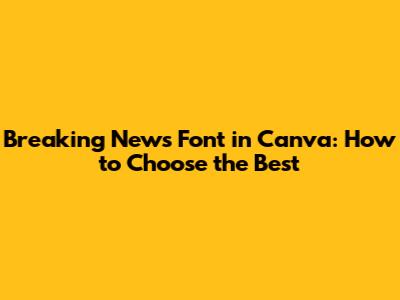
- Bebas Neue: This one's a classic. It's tall, bold, and screams 'Important!' Perfect for headlines that need to grab attention. It is a very solid choice for your breaking news headlines.
- Impact: True to its name, Impact is another solid choice. It’s big, blocky, and impossible to ignore. Use it when you need to make a serious statement.
- Arial Black: You can’t go wrong with Arial Black. It's clean, simple, and super readable. It works well in pretty much any context, especially when you need something reliable.
- Montserrat: If you're after something modern and clean, Montserrat is your go-to. It’s easy on the eyes and works great for both headlines and body text. It provides a more contemporary feel while still maintaining readability.
- Oswald: Another great sans-serif option, Oswald is slightly condensed, giving it a unique look while still being highly readable. It’s versatile and works well in a variety of news contexts.
- Size Matters: Make sure your font is large enough to be seen from a distance. On social media, people are often scrolling quickly, so you need to catch their eye instantly.
- Color Contrast: Use colors that pop against your background. Think bright text on a dark background or vice versa. Just make sure it’s easy to read!
- Keep it Short and Sweet: Breaking news headlines should be concise. Get straight to the point and avoid long, complicated sentences. Less is often more.
- Hierarchy is Key: Use different font sizes and weights to create a visual hierarchy. The most important information should be the largest and boldest.
- Consistency is King: Stick to a consistent font scheme across all your breaking news graphics. This helps build brand recognition and makes your content look professional.
- White Space is Your Friend: Don't cram too much text into your design. Give your words room to breathe by using plenty of white space. This makes the text easier to read and less overwhelming.
- Consider Mobile Viewing: A huge number of people will be seeing your breaking news on their phones. Make sure your font is readable on smaller screens. Test it out on your own device to see how it looks.
- Add Visual Elements: Combine your text with eye-catching images or graphics. A compelling visual can help draw attention to your breaking news and make it more shareable.
- Create a Brand Kit: Canva lets you create a brand kit with your go-to fonts, colors, and logos. This makes it easy to stay consistent across all your designs.
- Use Templates: Start with a template that already uses your preferred fonts. This saves you time and ensures consistency.
- Document Your Choices: Keep a record of the fonts you use for different types of breaking news. This will help you stay on track and avoid confusion.
- Get Feedback: Ask for feedback from others on your font choices. A fresh pair of eyes can help you spot inconsistencies and make improvements.
Choosing the right breaking news font in Canva is super important to grab attention and get your message across effectively. Think about it – the font is the first thing people see, and it sets the whole vibe. You want something that screams 'Read me now!' but also keeps things clear and professional. Let's dive into how to pick fonts that make your news pop!
Why Font Choice Matters for Breaking News
Guys, have you ever thought about why some news headlines just jump out at you while others fade into the background? A big part of it is the font. The right font does more than just display words; it communicates urgency, importance, and credibility. In the fast-paced world of news, you have seconds to capture someone's attention, and your font is your first impression.
Consider this: A bold, attention-grabbing font can convey the severity of the news, making people stop and take notice. A clear, easy-to-read font ensures that the message is understood quickly and without confusion. But use a font that's too fancy or difficult to read, and you risk losing your audience before they even get to the meat of the story. That's why understanding the impact of font choice is crucial.
When selecting a font, think about the emotional response you want to evoke. Do you want to create a sense of urgency? Authority? Or perhaps a more somber, serious tone? Each font has its own personality, and aligning that personality with the nature of the news is essential. For example, a clean, sans-serif font might be perfect for delivering straightforward information, while a strong, serif font could add weight and importance to critical updates.
Beyond emotional impact, readability is paramount. In breaking news, clarity is key. Viewers need to be able to grasp the headline at a glance, especially when they are quickly scrolling through feeds or catching a glimpse on a screen. Avoid fonts that are too decorative or condensed, as these can be difficult to decipher quickly. Stick to fonts with clear, well-defined characters that maintain their legibility even at smaller sizes.